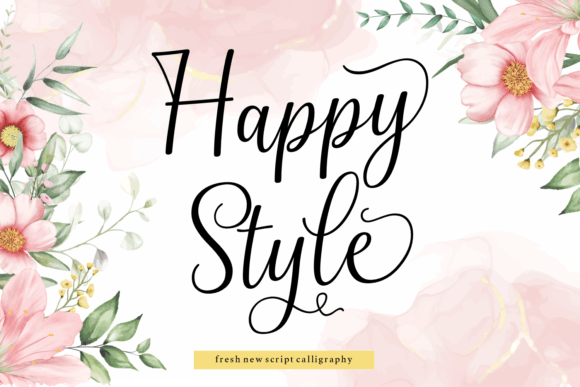
Introduction to Happy Style Font
Happy Style is a beautiful and elegant font script.
The romantic swashes and flowing rhythm of this font will add a touch of finesse to any design It looks stunning on wedding invitations, thank you cards, quotes, greeting cards, logos, business cards, and any other design.